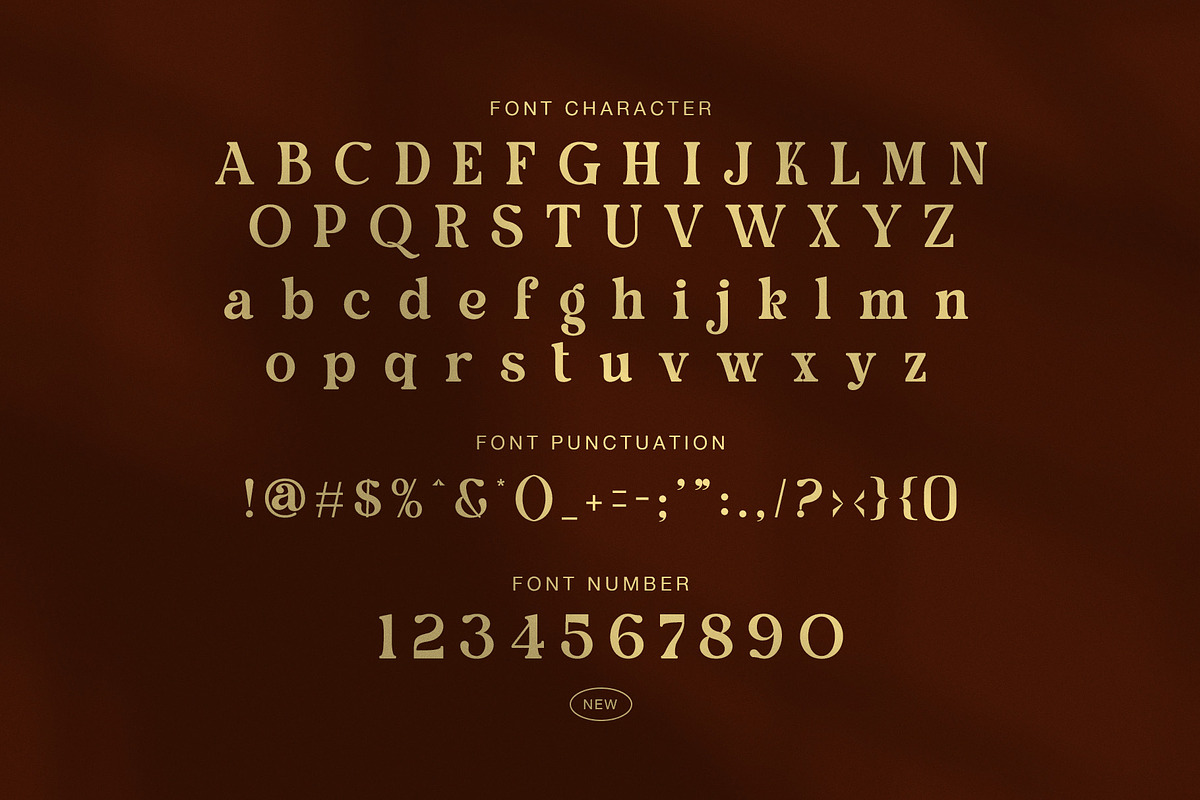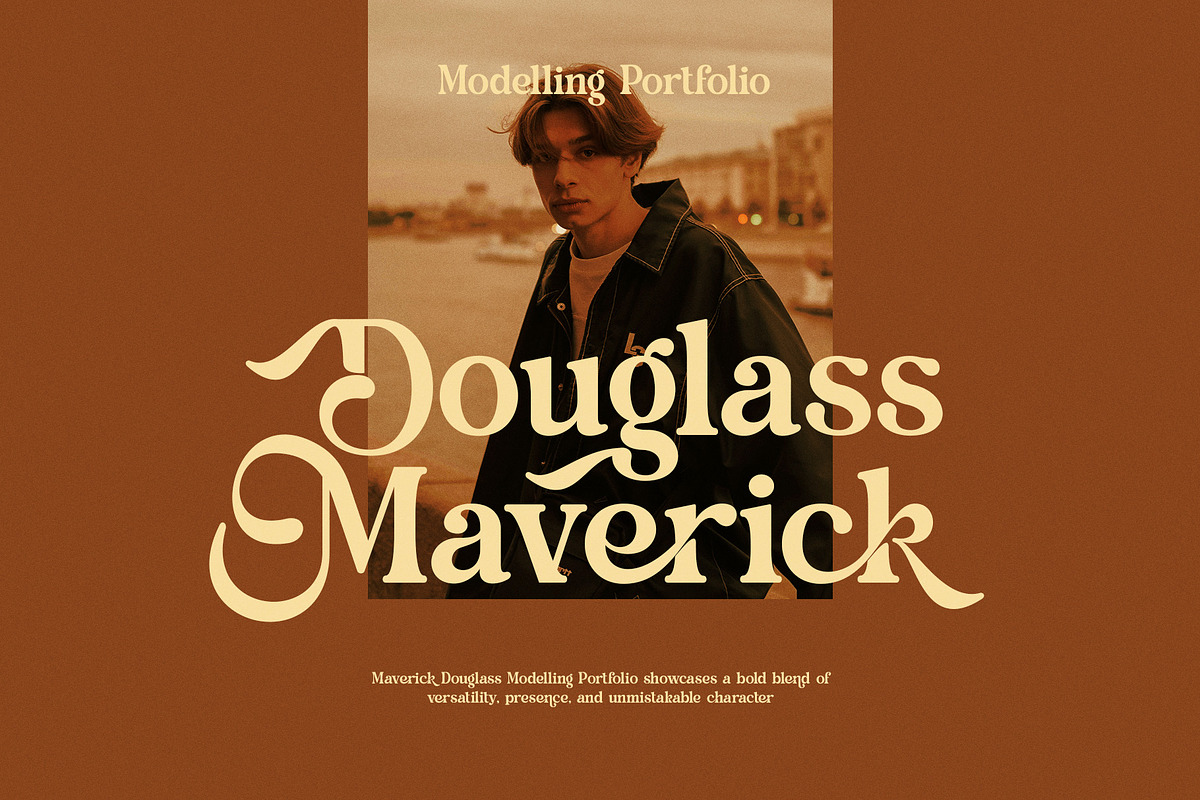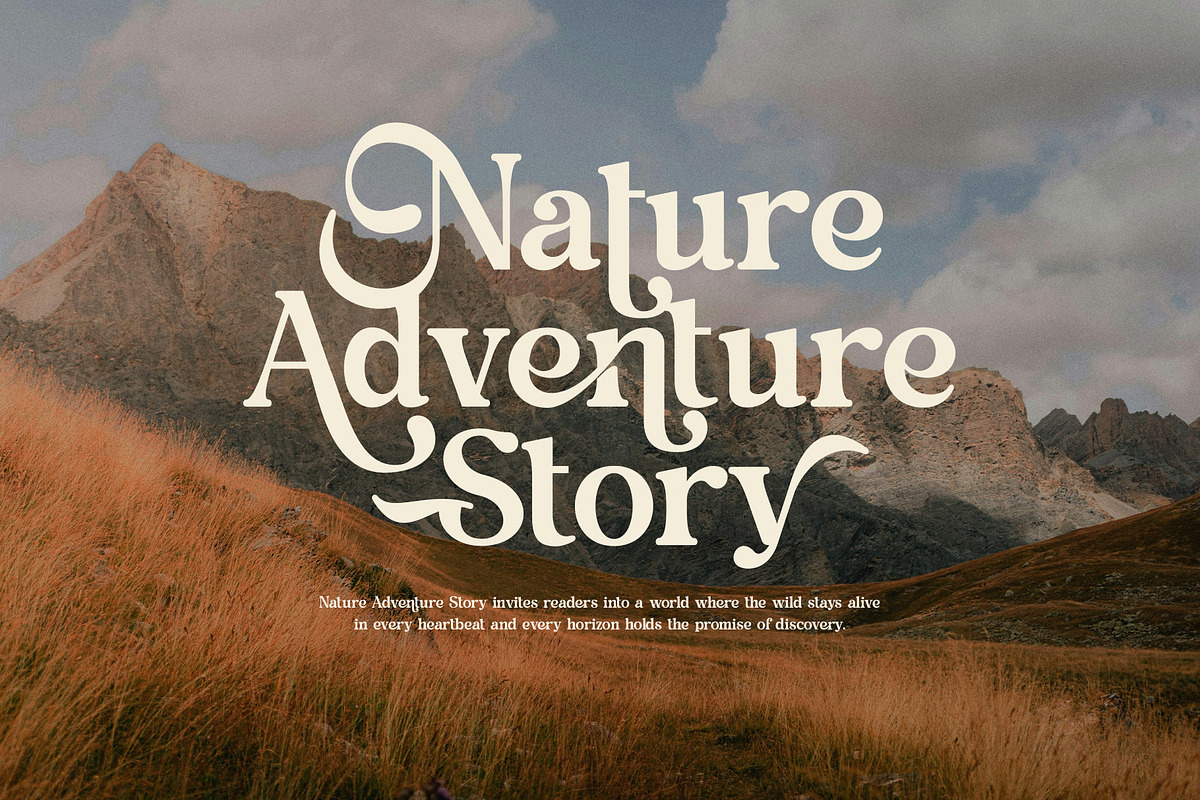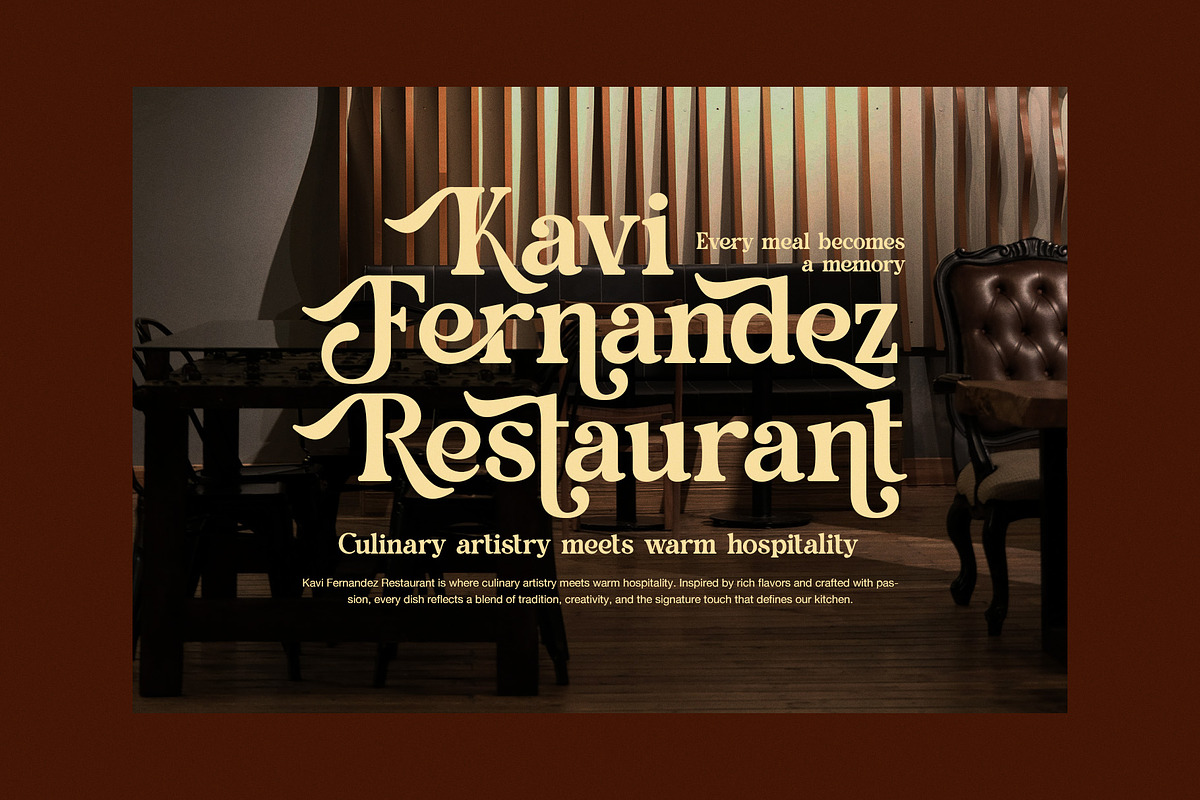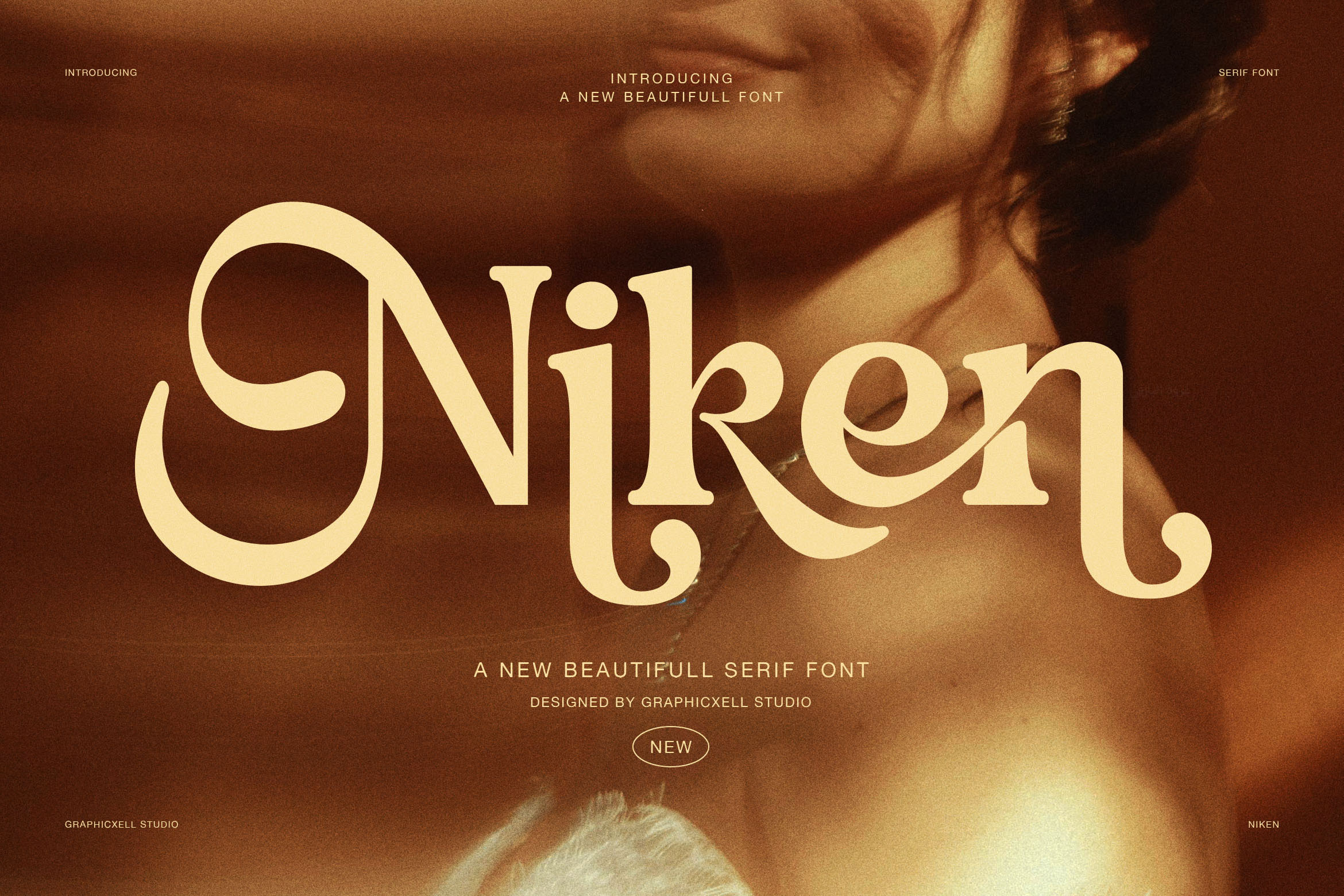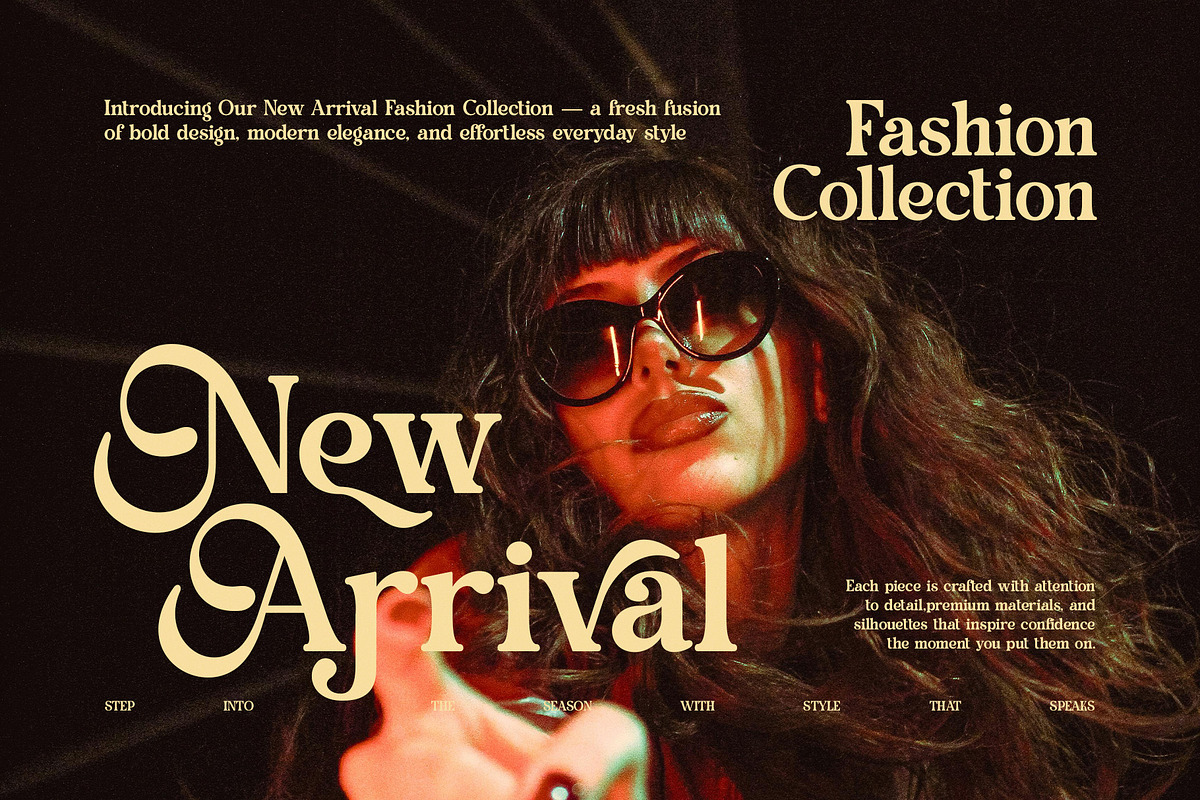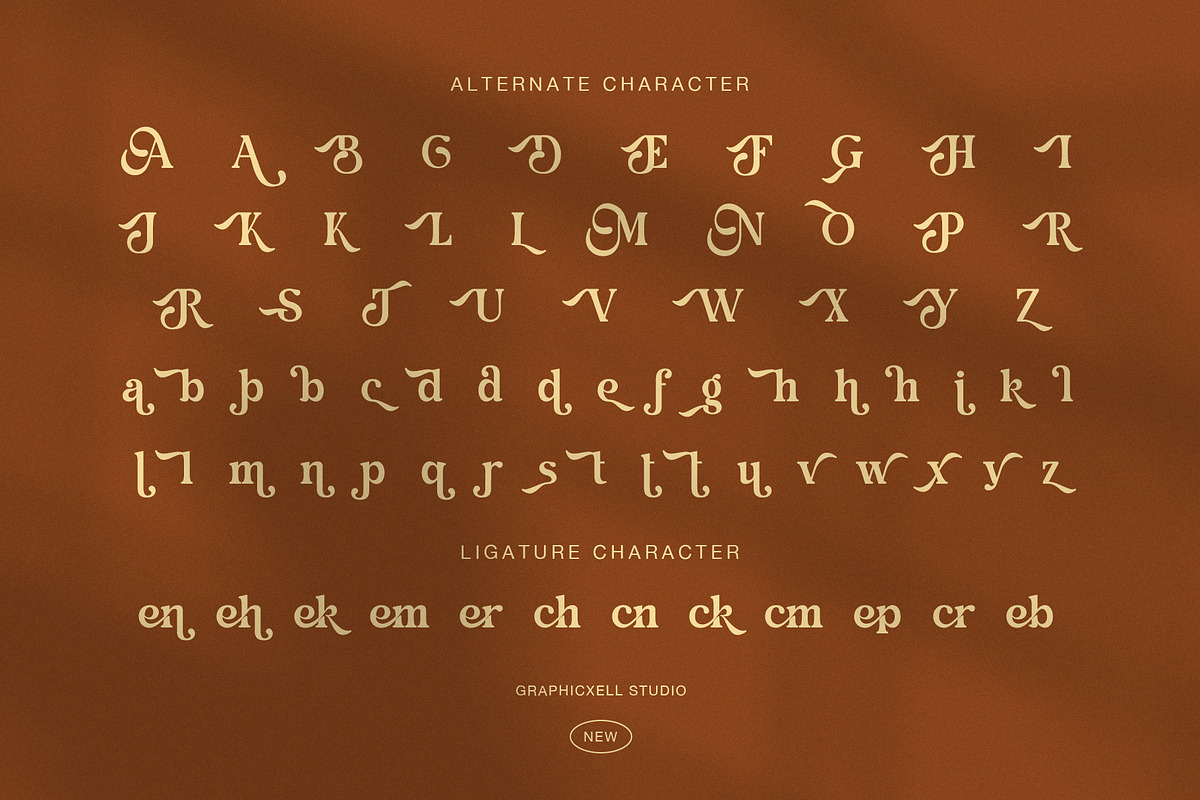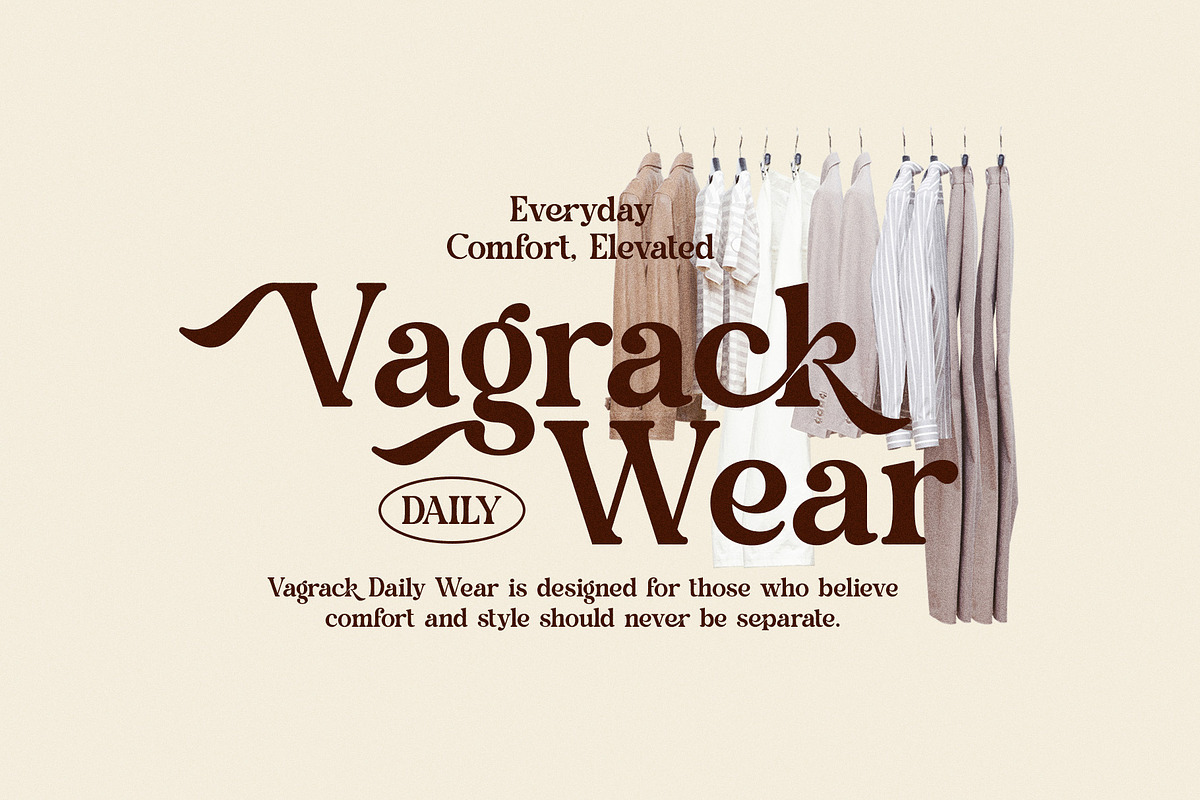
Niken Vintage Elegant Serif Font
Niken is a bold vintage elegant serif font that blends classic charm with modern confidence. Its strong curves, decorative swashes, and distinctive terminals instantly create a memorable visual impact. At the same time, the balanced proportions keep every word readable, which makes this font both expressive and practical.
Unlike minimalist serif styles, Niken embraces personality. The sculpted letterforms add warmth and character, so headlines feel rich and inviting rather than cold or mechanical. Moreover, the subtle retro influence gives designs a timeless appeal, making them look stylish today and enduring tomorrow.
This font shines in projects that require strong presence and artistic flair. For example, it looks stunning on restaurant branding, fashion campaigns, product packaging, editorial layouts, posters, book covers, and lifestyle advertising. In addition, the bold shapes perform beautifully in large display sizes, ensuring your message stands out even from a distance.
Niken also offers flexibility for modern designers. You can pair it with clean sans-serif fonts to create contrast, or combine it with elegant scripts for a luxurious feel. As a result, the font adapts easily to both contemporary and vintage-inspired designs.
Bold vintage serif style with elegant curves
Distinctive swashes and decorative details
Highly readable display letterforms
Numbers and punctuation included
Alternate characters for creative variety
Beautiful ligatures for smooth typography
Ideal for branding, headlines, and packaging
Beyond aesthetics, Niken communicates emotion. It suggests craftsmanship, confidence, and creative storytelling. Therefore, whether you are building a premium brand or designing eye-catching visuals, this font helps your work feel authentic and refined.
If you want typography that combines strength, elegance, and timeless character, Niken is a powerful choice.